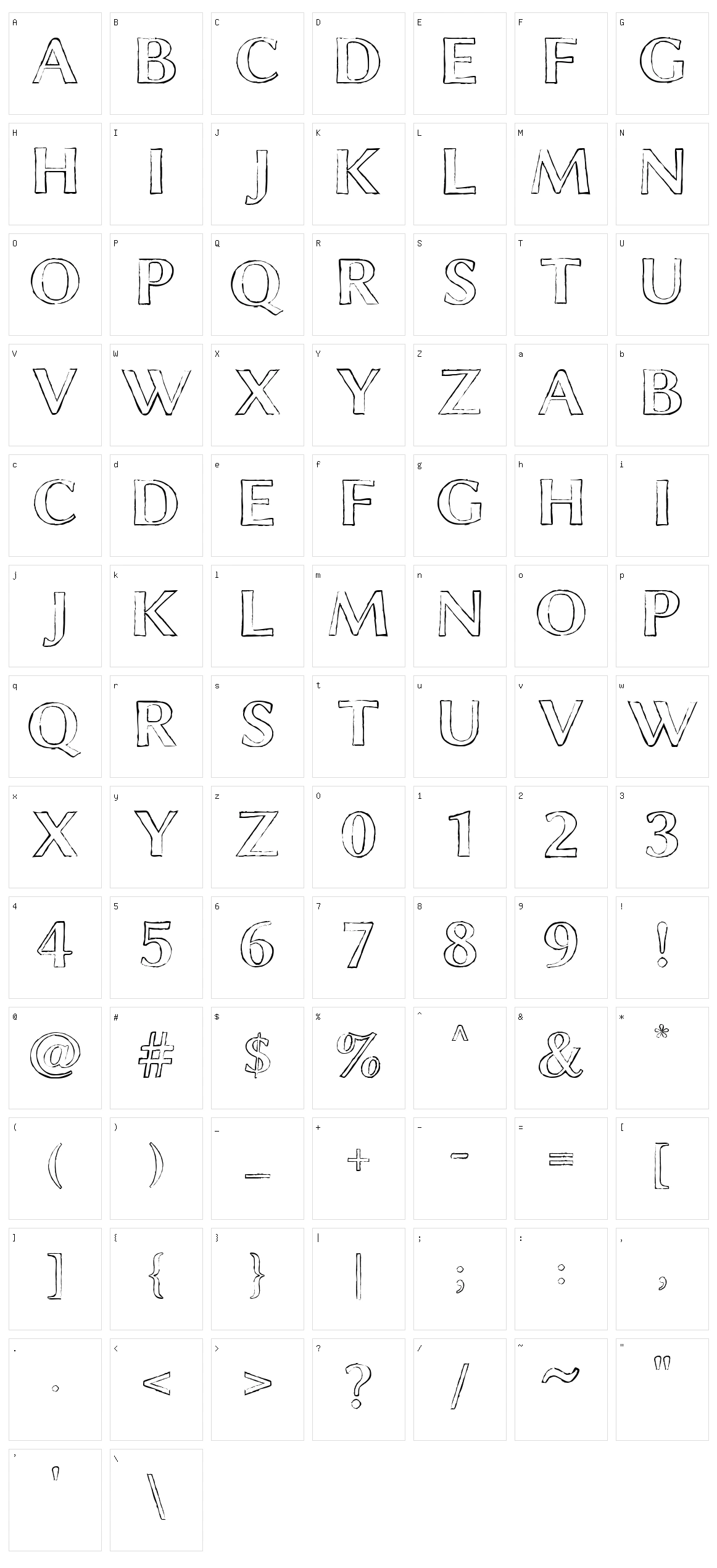
Chalk Line Font
The Chalk Line font is a chalk-like outline font designed by me. This font may be heavy to load. The font is based on Linux Biolinum Bold. I created this font using Fontographer 5 and Adobe Illustrator. Like all other fonts, this font is available in TrueType and OpenType formats, and it is in the public domain.